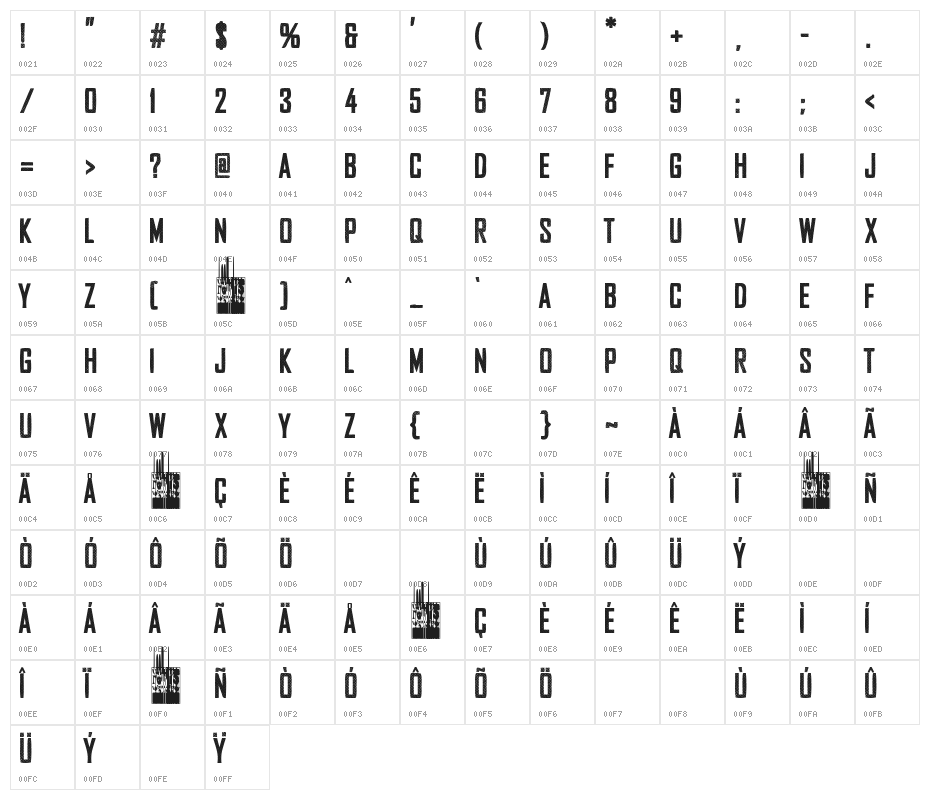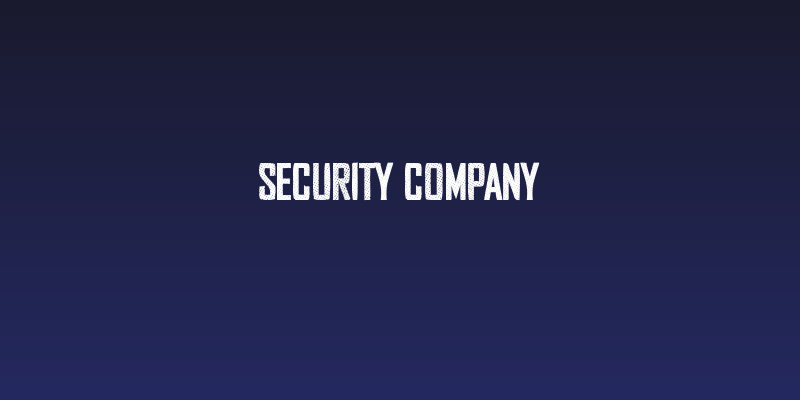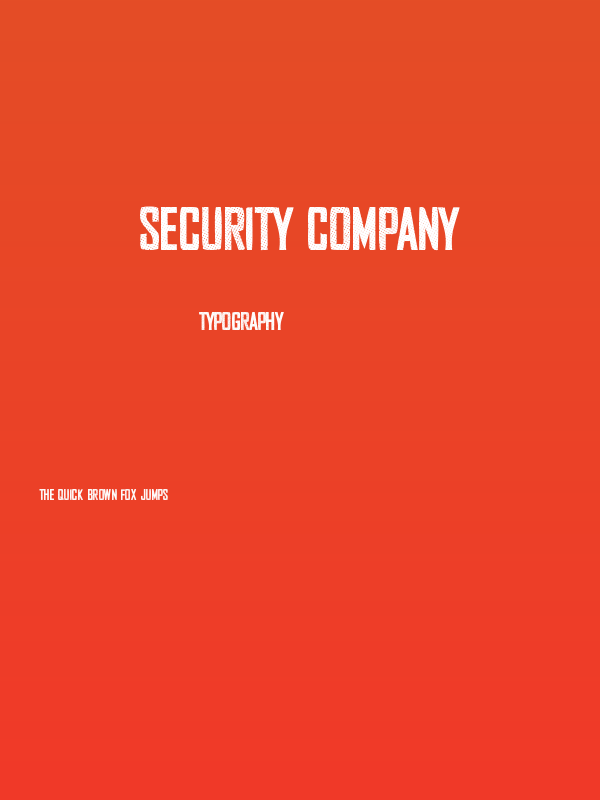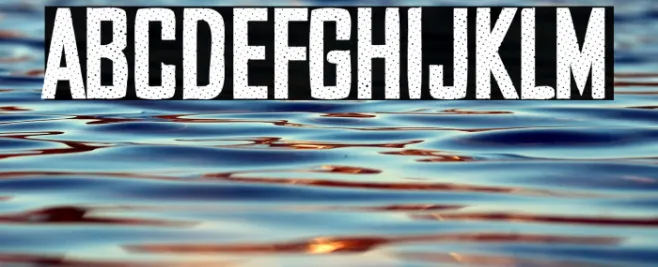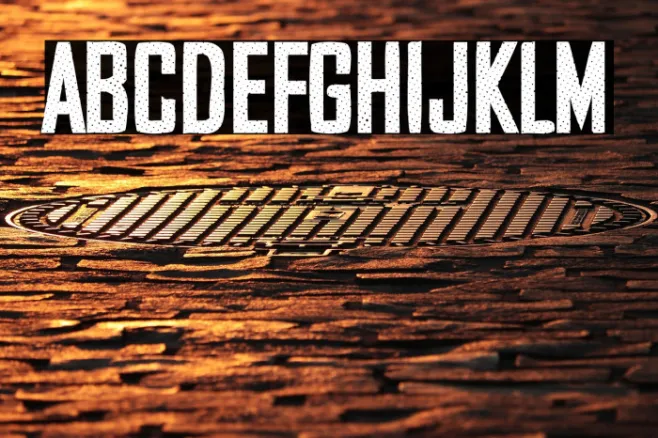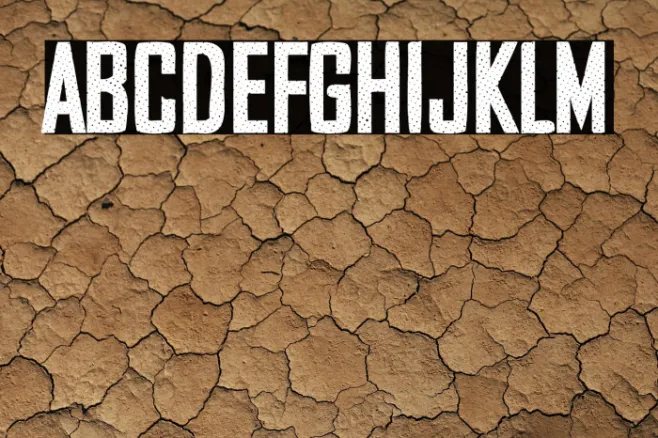
Security Company Font
Security Company Description
This font features a bold and robust design with a textured, distressed appearance, giving it a gritty and industrial feel. The uppercase letters are uniformly bold, with a consistent width and height, creating a strong visual impact. The numbers and special characters maintain this boldness, ensuring a cohesive look across all characters. The texture within each character adds a layer of depth and complexity, making it ideal for projects that require a rugged or vintage aesthetic. Despite its boldness, the font maintains legibility, making it suitable for both display and headline use.
| Proposed Projects | Ideal for branding, posters, album covers, and any design needing a rugged, vintage look. |